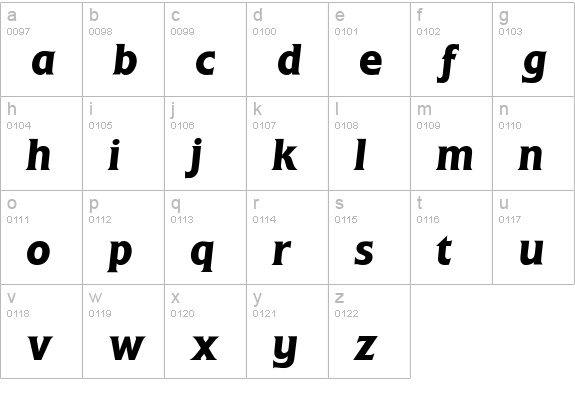
Flange (R) Medium Italic Font Details
Flange (R) Medium Italic is a balanced, medium-weight, italic variant in the Flange typeface family \xE2\x80\x94 well suited to sub-headlines, navigation, and balanced editorial work.
Introducing Flange (R) Medium Italic font - a modern and stylish typeface designed to make your projects stand out. With its sleek and sophisticated appearance, Flange (R) Medium Italic font is perfect for a variety of design applications, from logos to branding materials, posters, and more. This versatile font features a unique blend of elegance and readability, making it suitable for both display and body text. Its medium weight and italic style add a touch of flair to your designs, while maintaining a professional and polished look. Best of all, Flange (R) Medium Italic font is completely free to download at FontsMarket.com. Whether you're a designer looking to add a fresh new font to your collection or a business owner in need of a stylish typeface for your marketing materials, Flange (R) Medium Italic font is a fantastic choice that won't cost you a penny. Download it today and elevate your designs with this sleek and contemporary font.